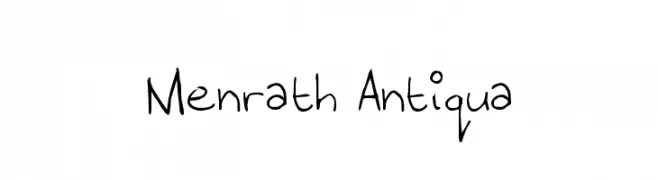
( Jaime Rangel Castro )
A playful, bold font with rounded, whimsical characters.
( Fonts A Go-Go - www.postmodernvillage.com/fonts.html )
A jagged, hand-drawn font with a mechanical, inkblot-inspired style.
( LJ Design Studios - www.ljdesignstudios.com )
An elegant, flowing script font with intricate loops and swirls.
( Foopy - www.foopy.com/ )
A decorative font with a melting, dripping effect ideal for dramatic themes.
( Foopy - www.foopy.com/ )
A bold, melting-effect outline font with jagged edges.
( Font Monkey - www.fontmonkey.com )
A playful, handwritten font with a friendly and casual style.
( Fontage Canada )
A playful, handwritten font with irregular, whimsical strokes.
( Freddiemerqwerty - freddiemerqwerty.weebly.com/ )
A playful and casual handwritten font with fluid, expressive strokes.
( Fresh Fonts - formerly at eccodomani.org/freshfonts/ )
A casual, handwritten style font with a playful and informal appearance.